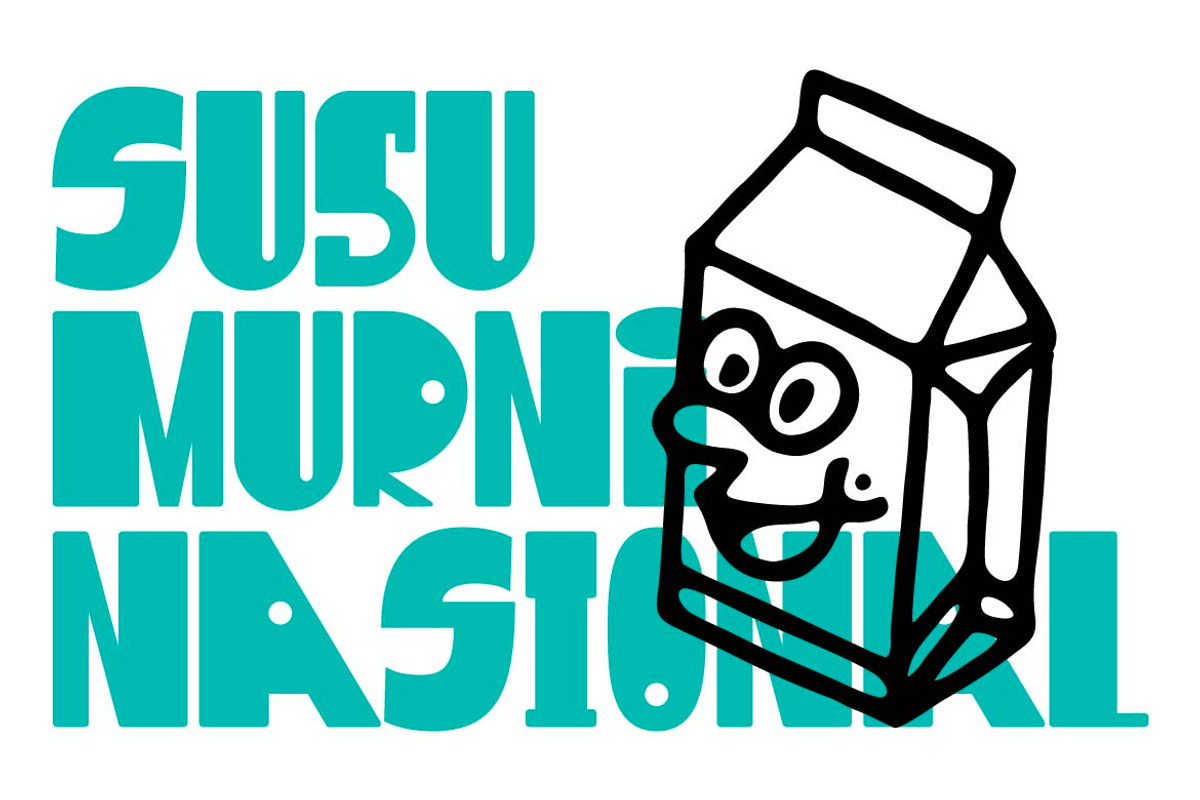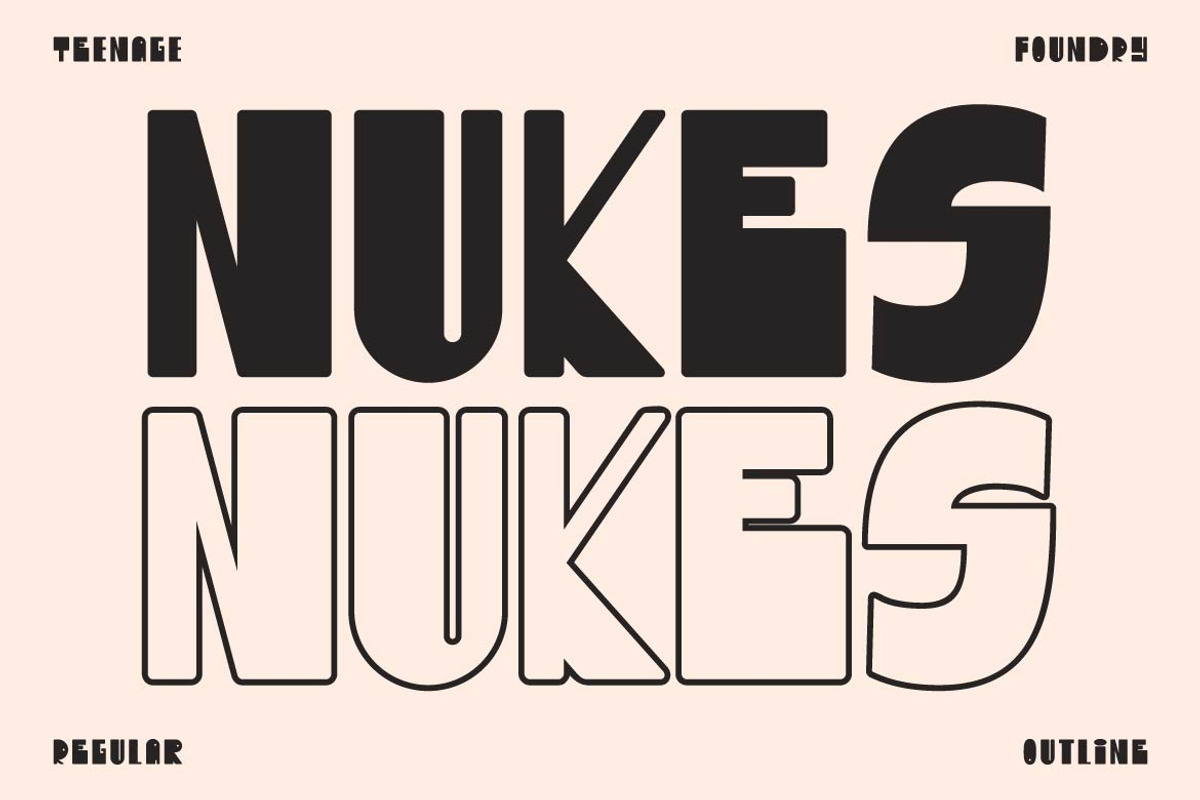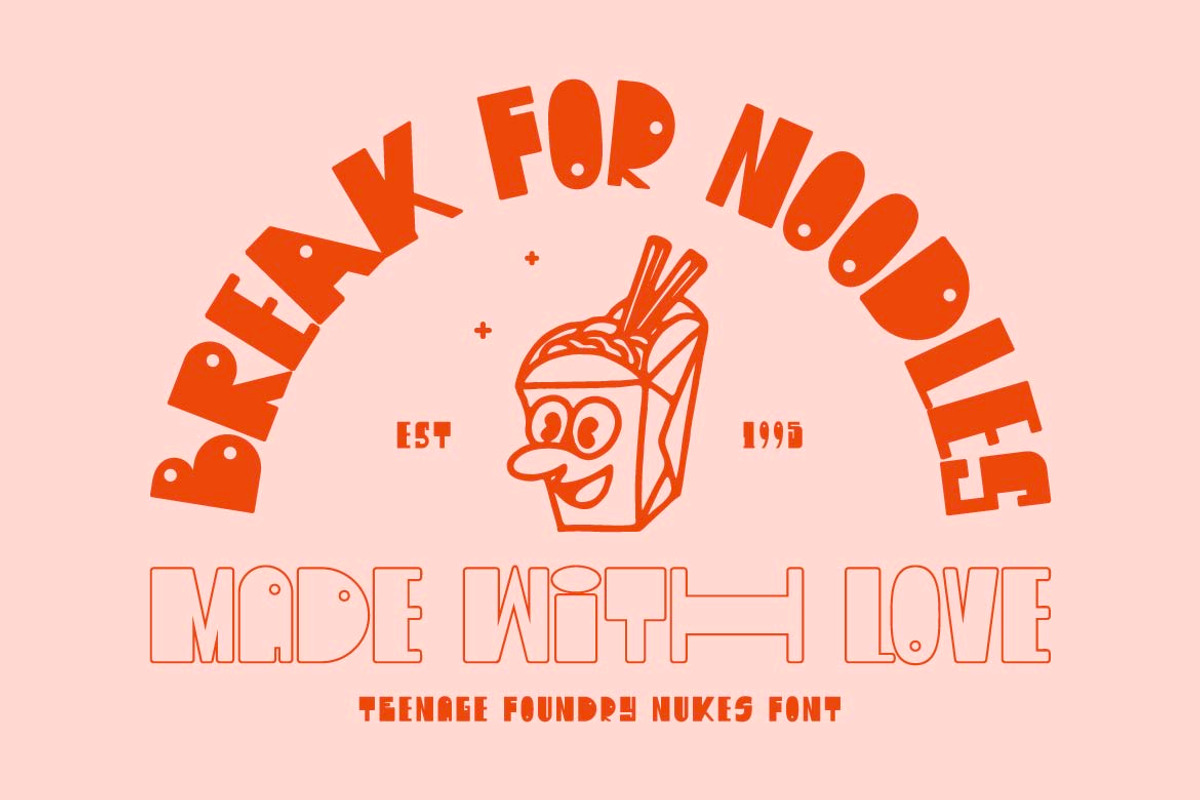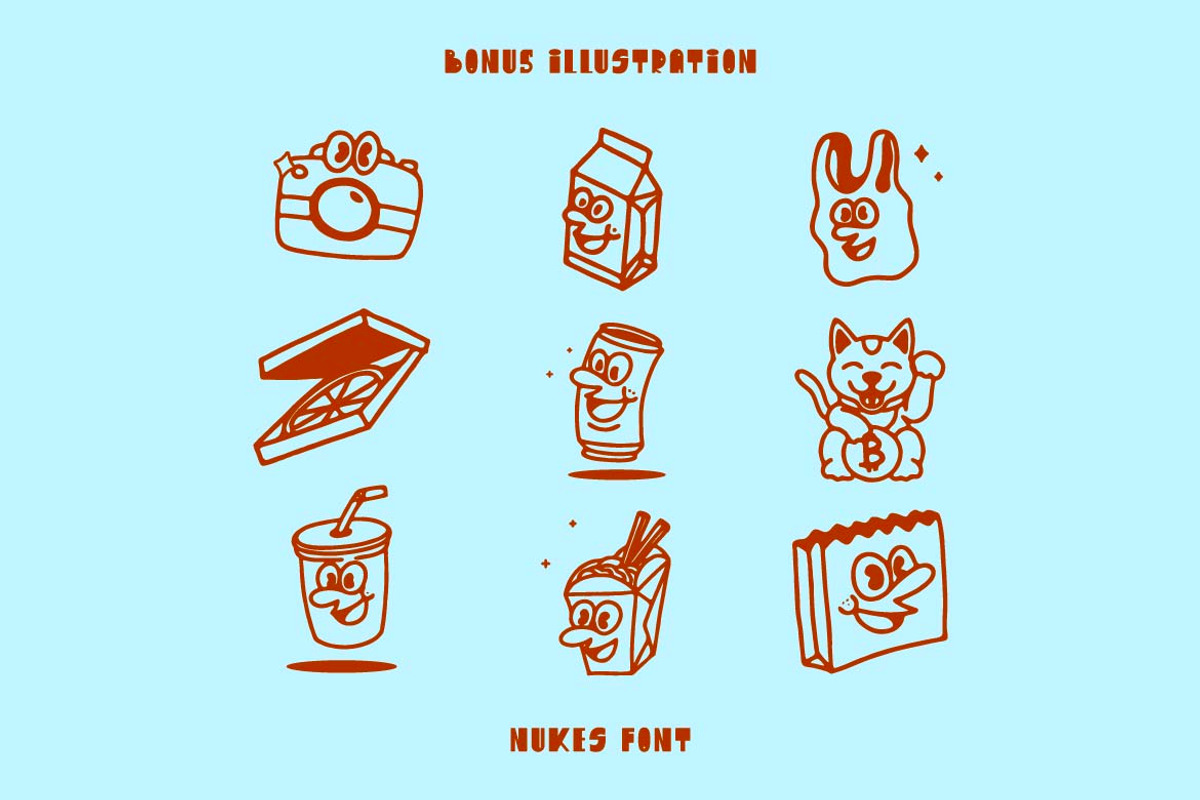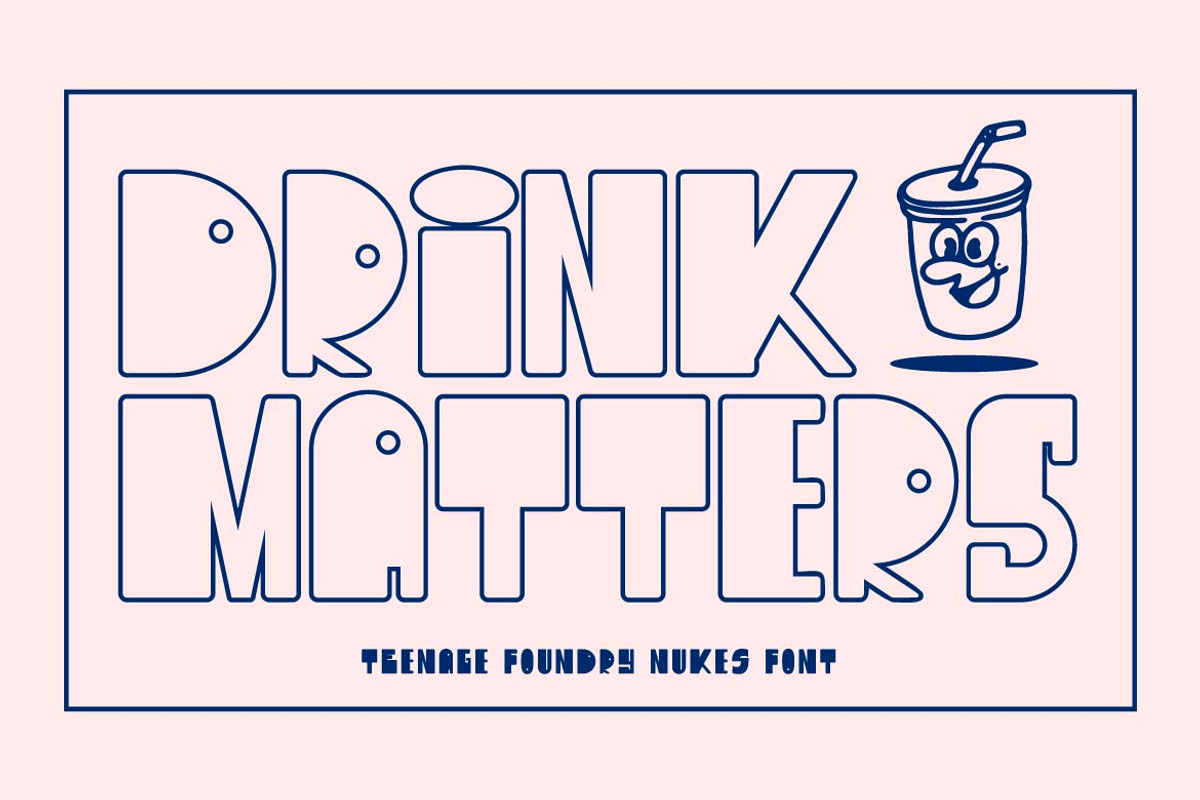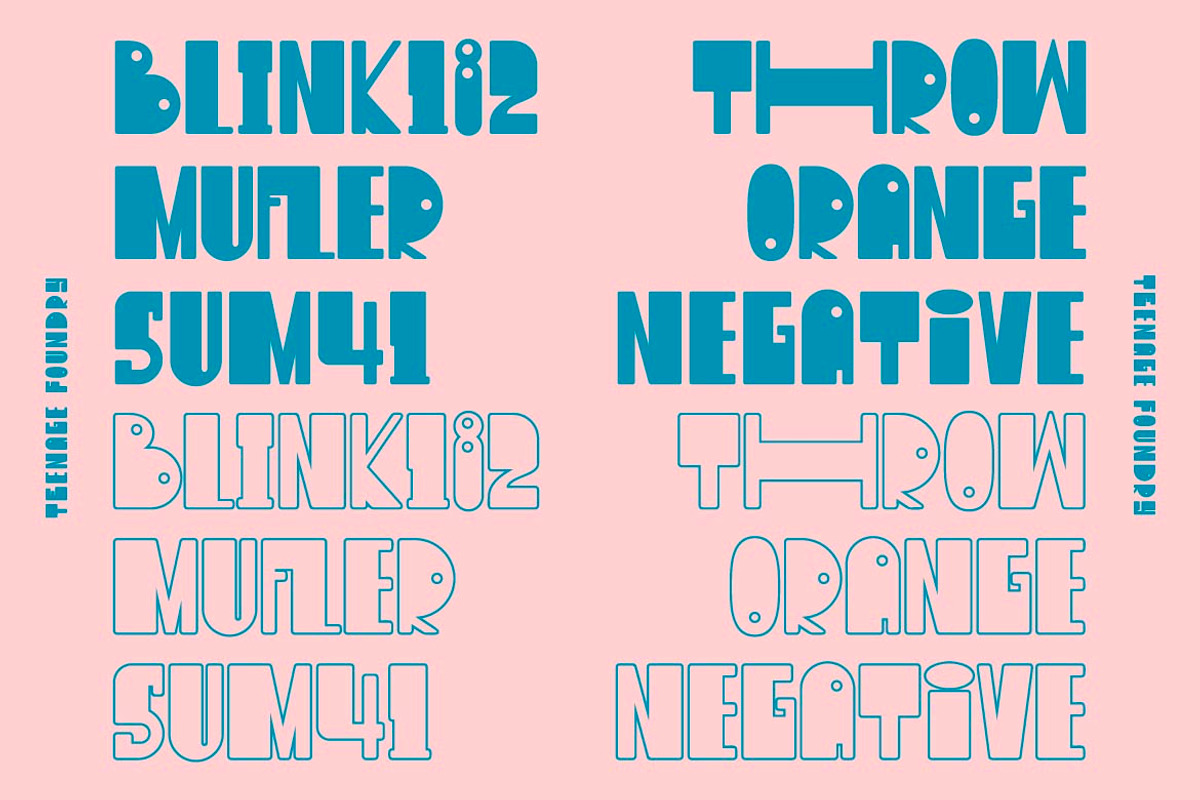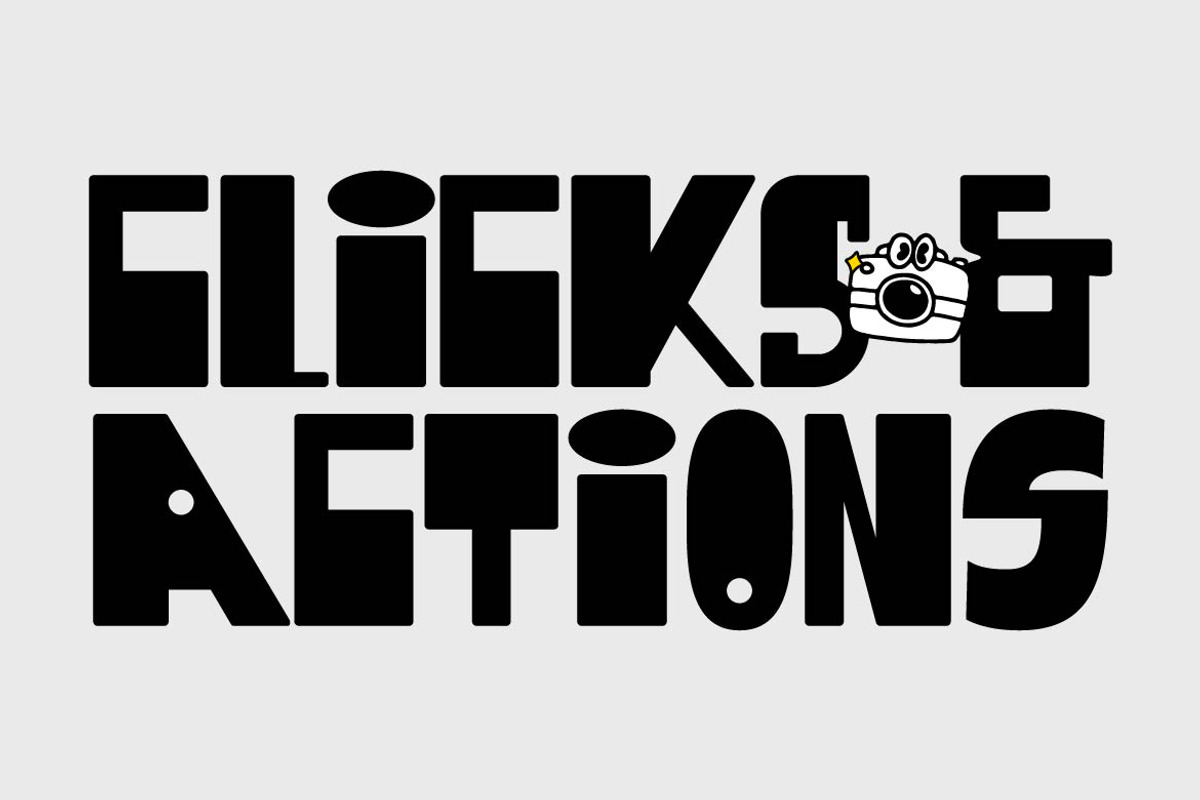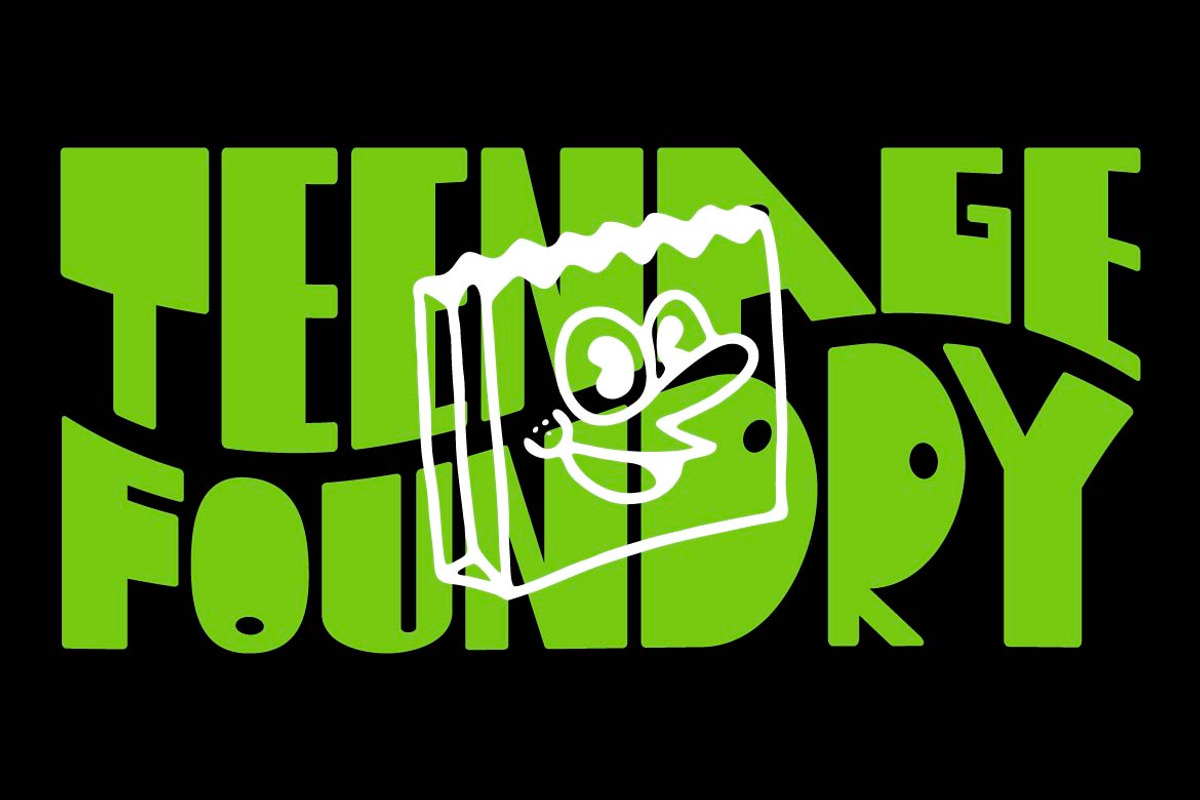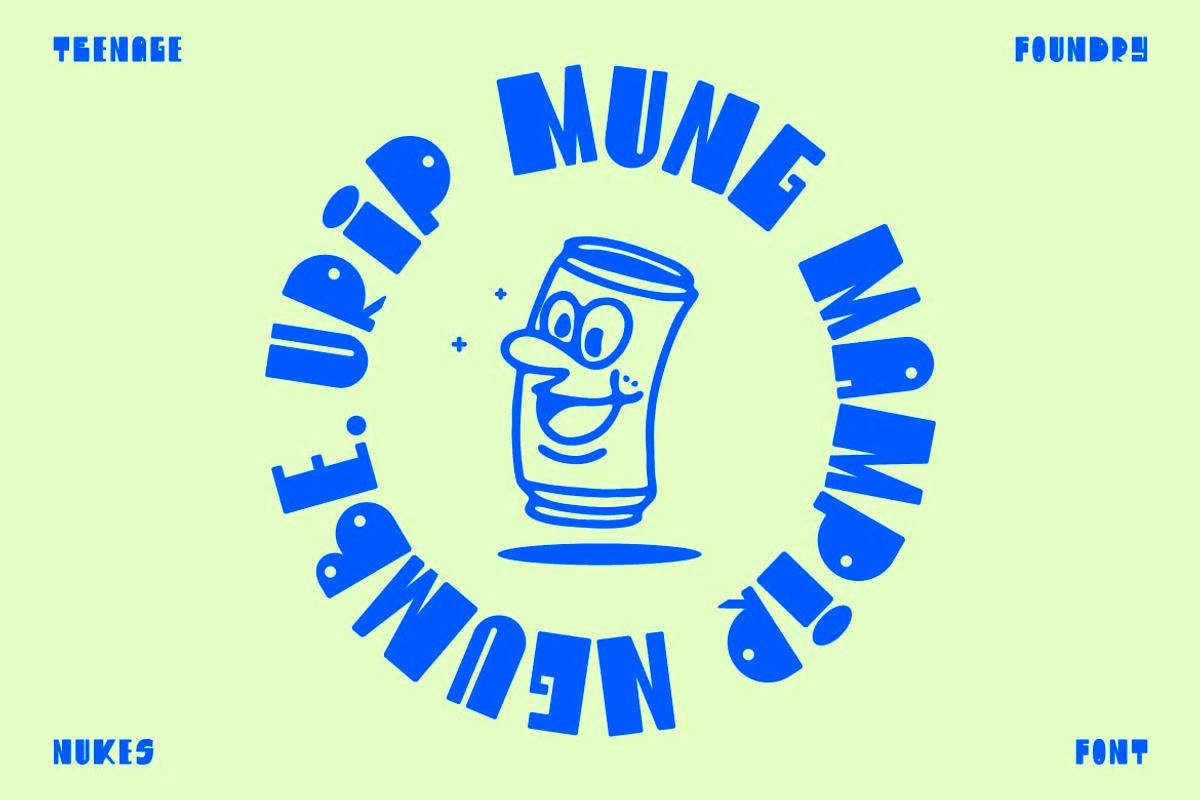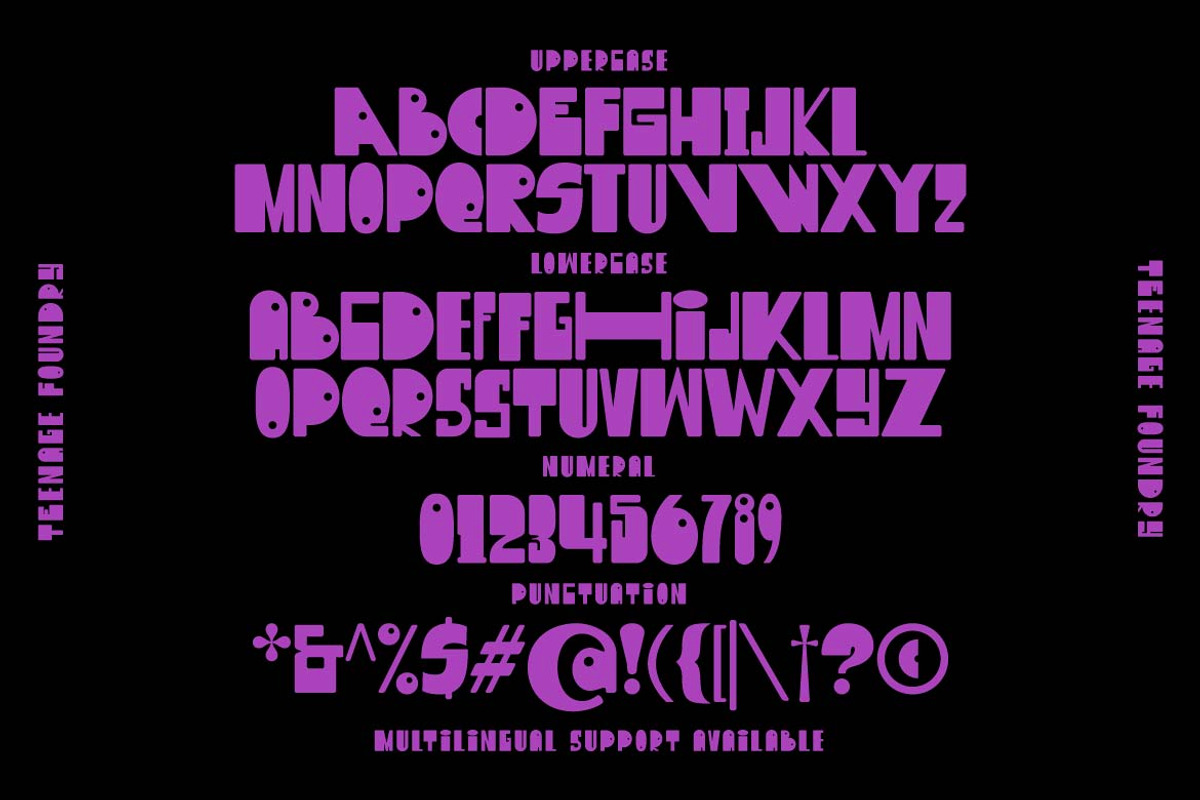
TF Nukes
Introducing TF Nukes – the boldest display style font that will capture the attention of your audience and make your message stand out! This bold, strong font is perfect for headlines, titles, and any other text that needs to make a statement.
Nukes comes with a bonus of 9 illustrations that will take your designs to the next level. This illustration fits perfectly into the font and will give your project a cohesive and professional look.
A bold and striking font style will make your message impossible to ignore, while the bonus illustrations will add an extra layer of creativity to your design.